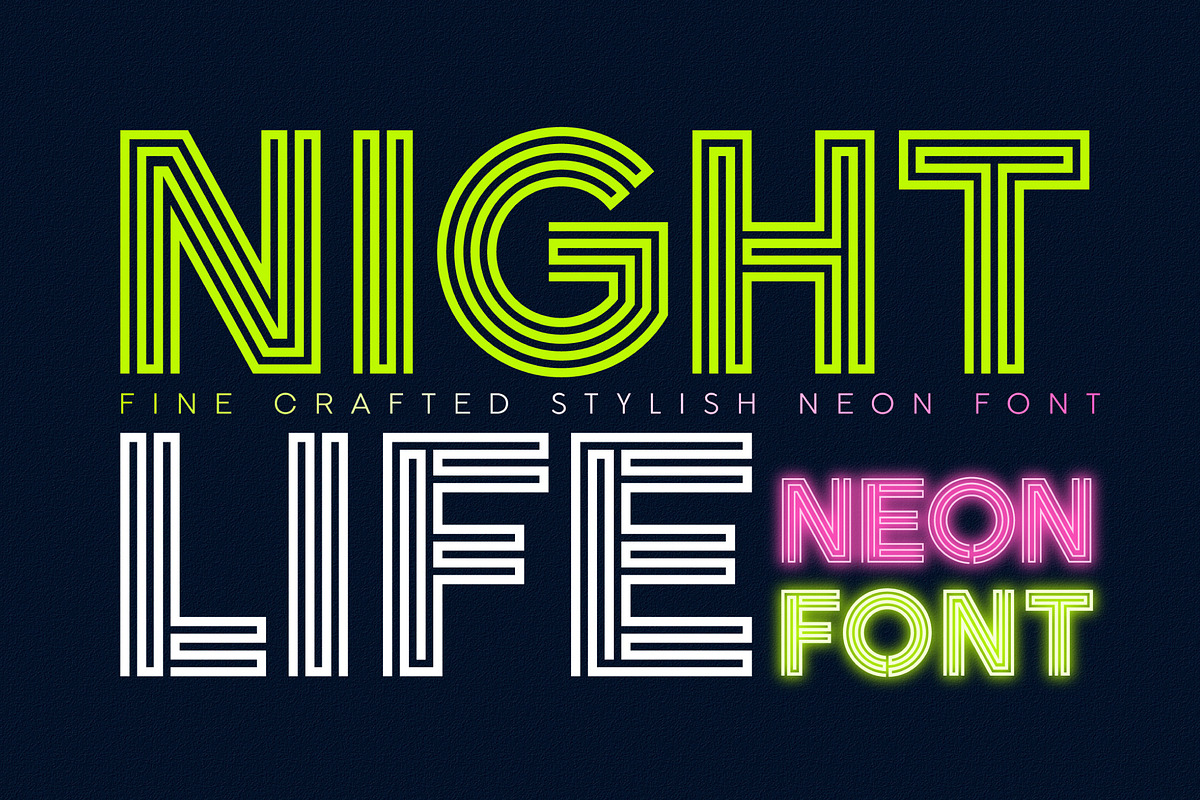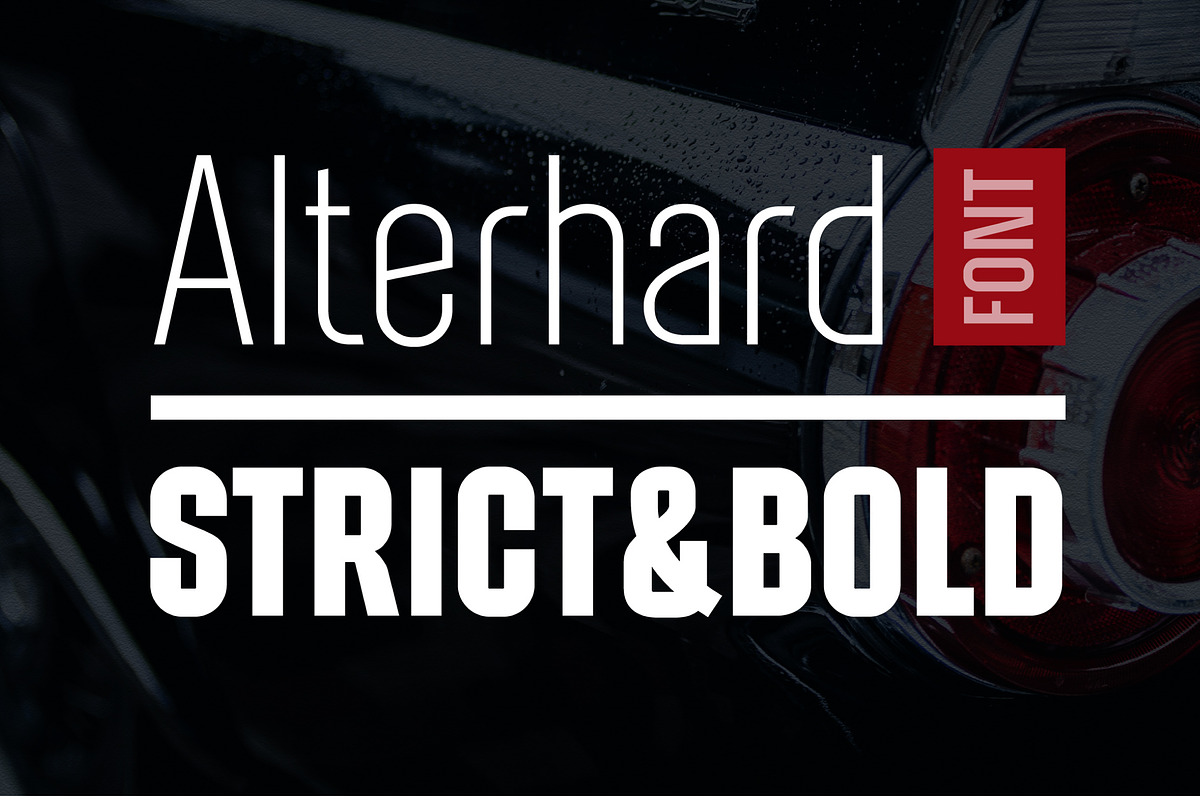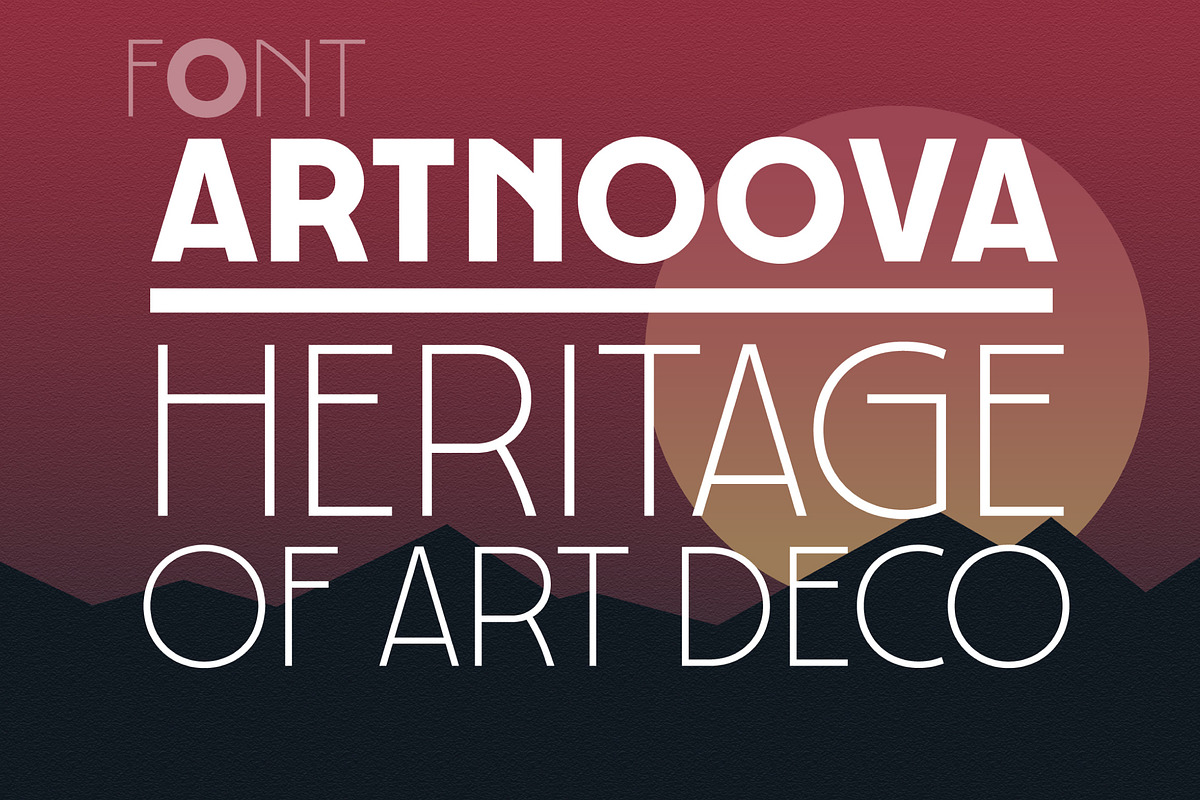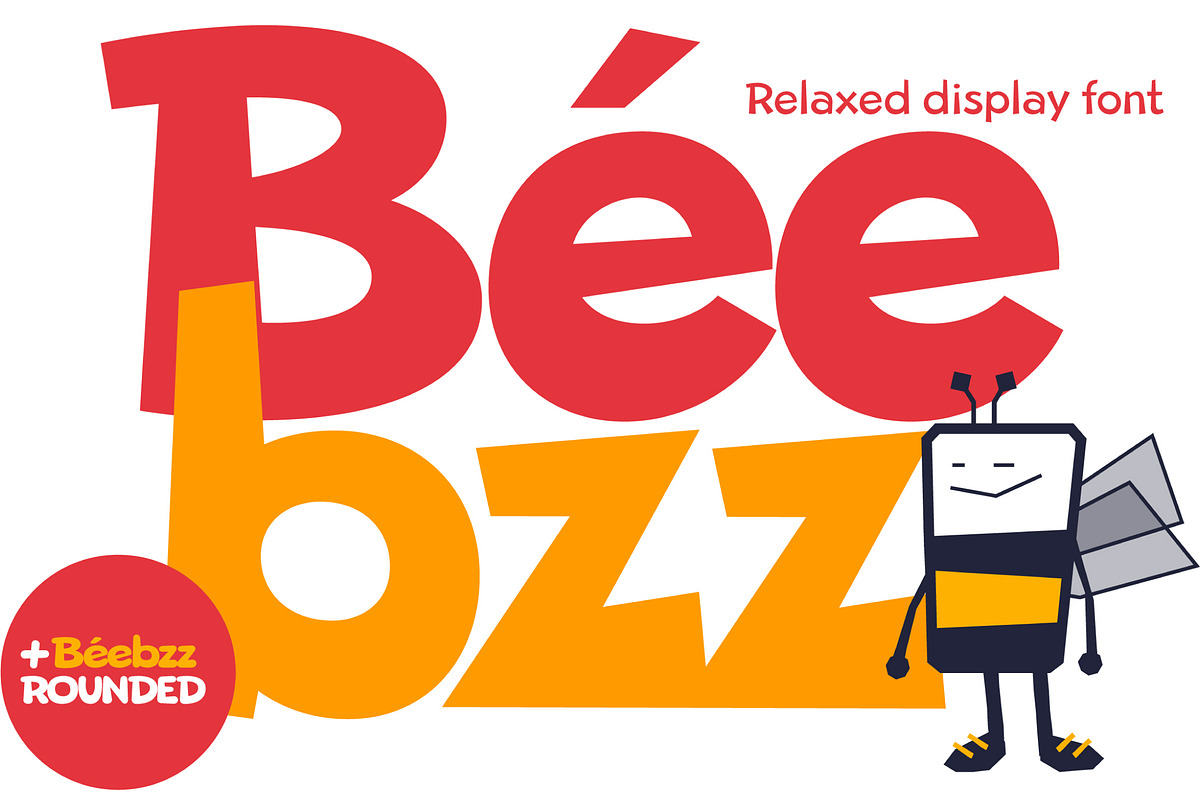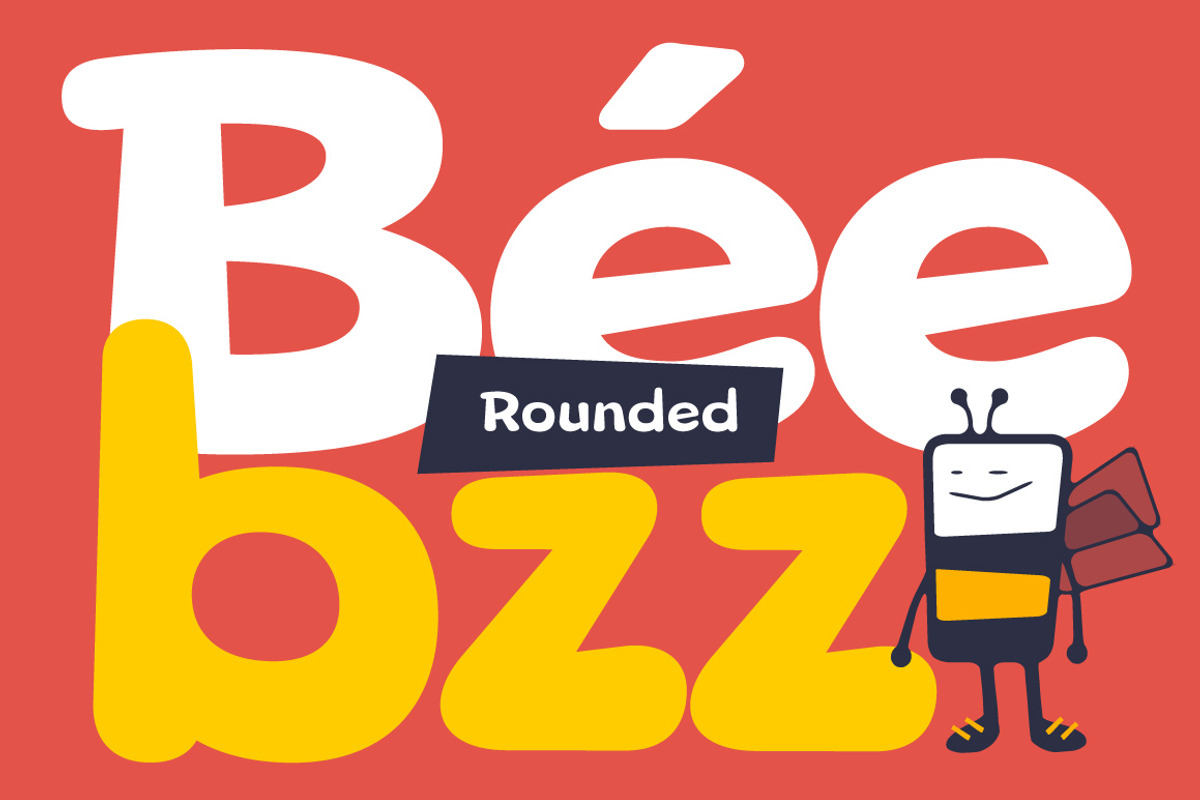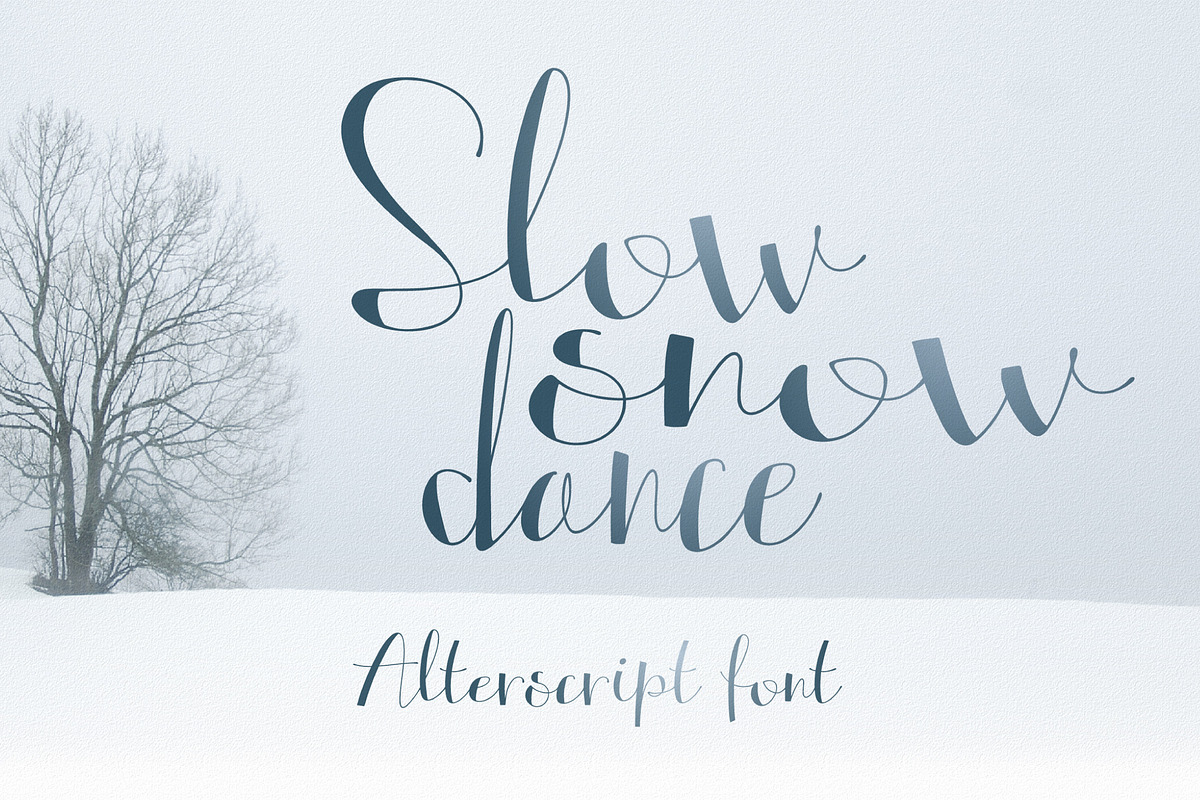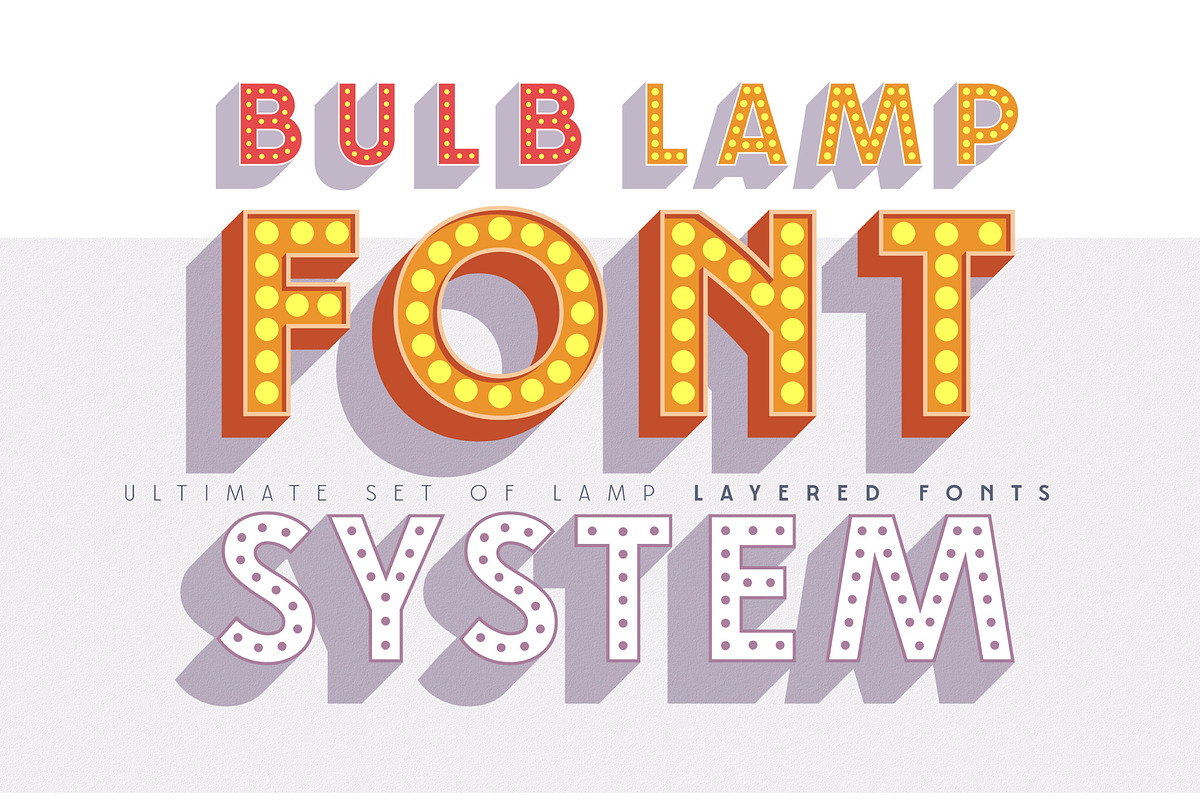
Display Font Bundle By Popsktaft
We are pleased to present to you the bundle of the best fonts made by us for more then 5 years. Most of the font families have multiple sizes.
This package contains 9 font families:
AlterGlam Elegant Extended Font —
Beebzz. Child kid fun Font —
Alterhard Condensed Strict Font —
Artnoova Font. Heritage of Art Deco —
Nightlife Decorative Neon Font —
Layered font set 3D Bulb lamp —
Alpuzato fresh & superfunny font —
Hand drawn script font. Beaverist —
Contrast hand font Alterscript —